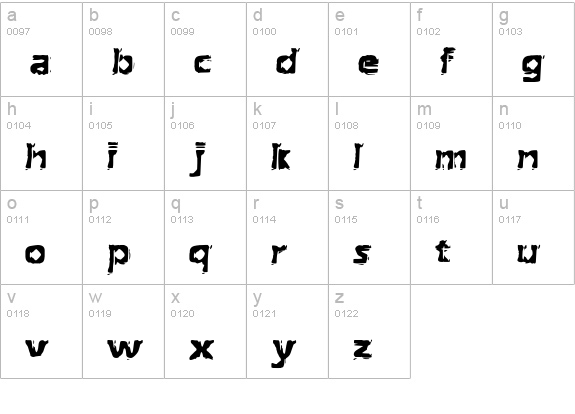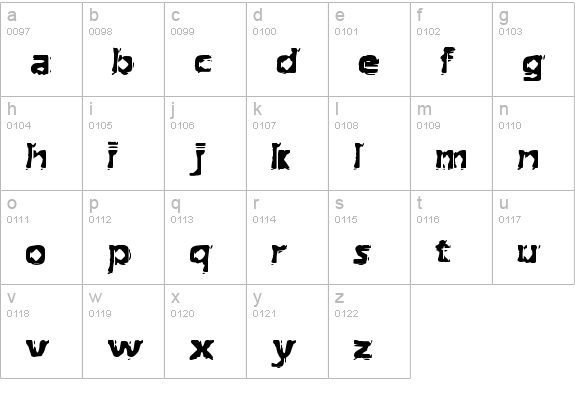
Extraction (BRK) Font Details
Extraction (BRK) font is a bold and striking typeface that exudes a sense of strength and power. Its sharp edges and unique design make it perfect for creating eye-catching headlines and titles. With a modern and futuristic look, Extraction (BRK) font is sure to make a statement in any design project. The best part about Extraction (BRK) font is that it is completely free to download at FontsMarket.com. This means you can add this impressive font to your collection without having to spend a dime. Whether you're working on a poster, website, or any other creative project, Extraction (BRK) font will help you stand out with its edgy and impactful style. Download it now and unleash the power of this dynamic font in your designs.